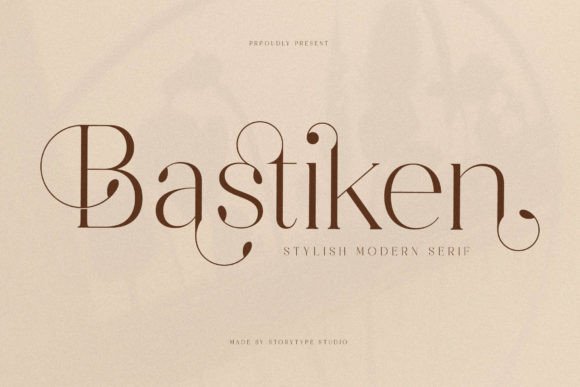
Introducing Bastiki Serif Font, the embodiment of elegance and sophistication, a creation of Storytype Studio. Dive into the world of typography with Bastiki, designed to captivate your audience and leave a lasting impression. Its exquisite flourishes and refined curves add a touch of elegance to any project, making it perfect for logos, branding, invitations, and fashion designs.
Bastiki's elegance lies in its timeless design, inspired by classic serif fonts yet infused with a modern twist. Each character exudes sophistication, with delicate serifs and graceful curves that flow effortlessly. Whether you're a designer crafting an unforgettable logo or a fashionista creating a timeless garment, Bastiki is your font of choice.
Embrace the art of typography with Bastiki, allowing your words and designs to speak volumes. Elevate your branding, add a touch of luxury to your invitations, or create fashion designs that radiate elegance. With Bastiki, you'll discover a world of endless creative possibilities, transforming your projects into works of art.
Join the ranks of design enthusiasts who have embraced Bastiki, experiencing the joy of creating elegant and refined designs. As you watch your audience marvel at the beauty of your creations, you'll know you've made the right choice in choosing Bastiki, the font that elevates your designs to new heights of sophistication.
Unlock the potential of your creativity with Bastiki Serif Font. Let your designs blossom with elegance, sophistication, and timeless style. Elevate your projects, captivate your audience, and create designs that leave an unforgettable impression.